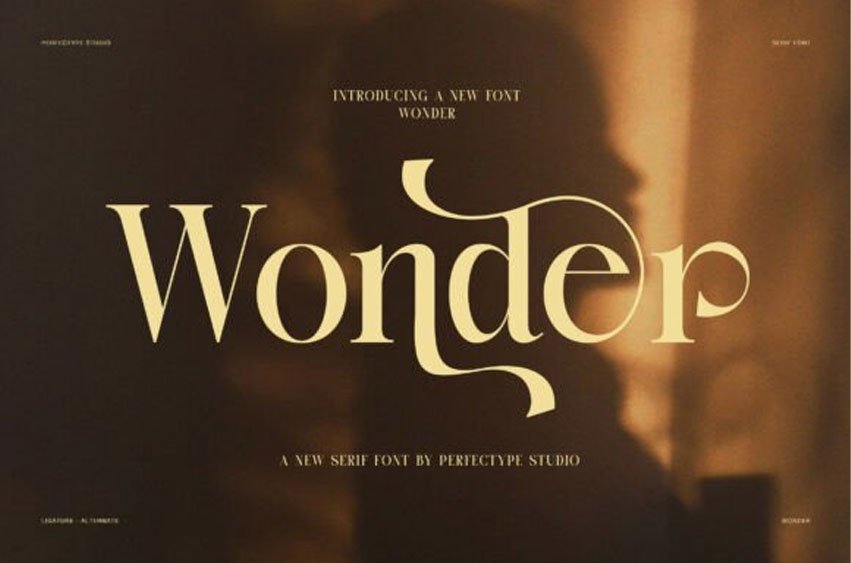
Wonder Serif Font
Wonder Serif Font is an elegant ligature serif font crafted for designers who appreciate refined typography with a modern artistic touch.
Inspired by luxury branding, contemporary editorials, premium fashion, and sophisticated lifestyle aesthetics, this display typeface combines timeless serif construction with graceful ligatures and expressive alternate characters. Consequently, every design gains a distinctive and memorable visual identity.